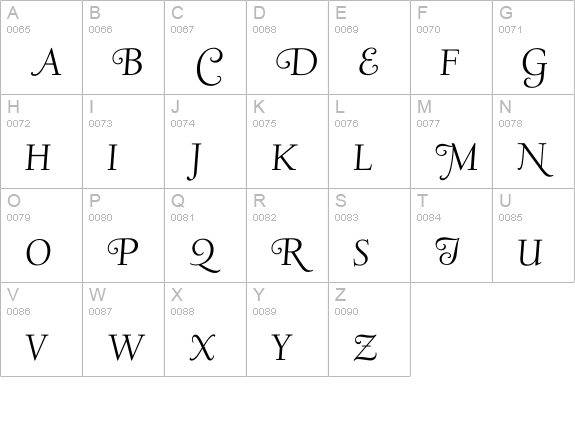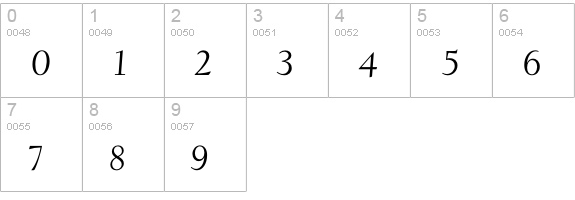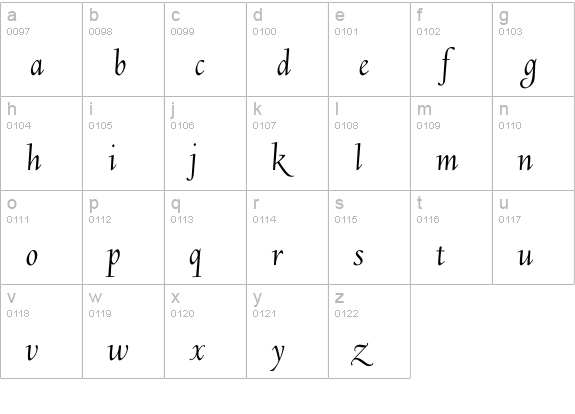
DeepdeneLWAlt-Italic Font Details
DeepdeneLWAlt-Italic is a distinctive, italic variant in the DeepdeneLWAlt typeface family \xE2\x80\x94 well suited to design and typography projects.
DeepdeneLWAlt-Italic font is a stylish and elegant typeface that exudes sophistication and charm. Its slanted design adds a touch of modernity while maintaining a classic appeal. The graceful curves and unique letterforms make this font perfect for adding a touch of sophistication to any project. This font is freely available to download at FontsMarket.com, making it easily accessible for designers and creatives looking to elevate their work with a touch of elegance. Whether you're designing a wedding invitation, a branding project, or simply looking to add a touch of class to your designs, DeepdeneLWAlt-Italic font is sure to impress. Download it today and add a touch of refined beauty to your projects.